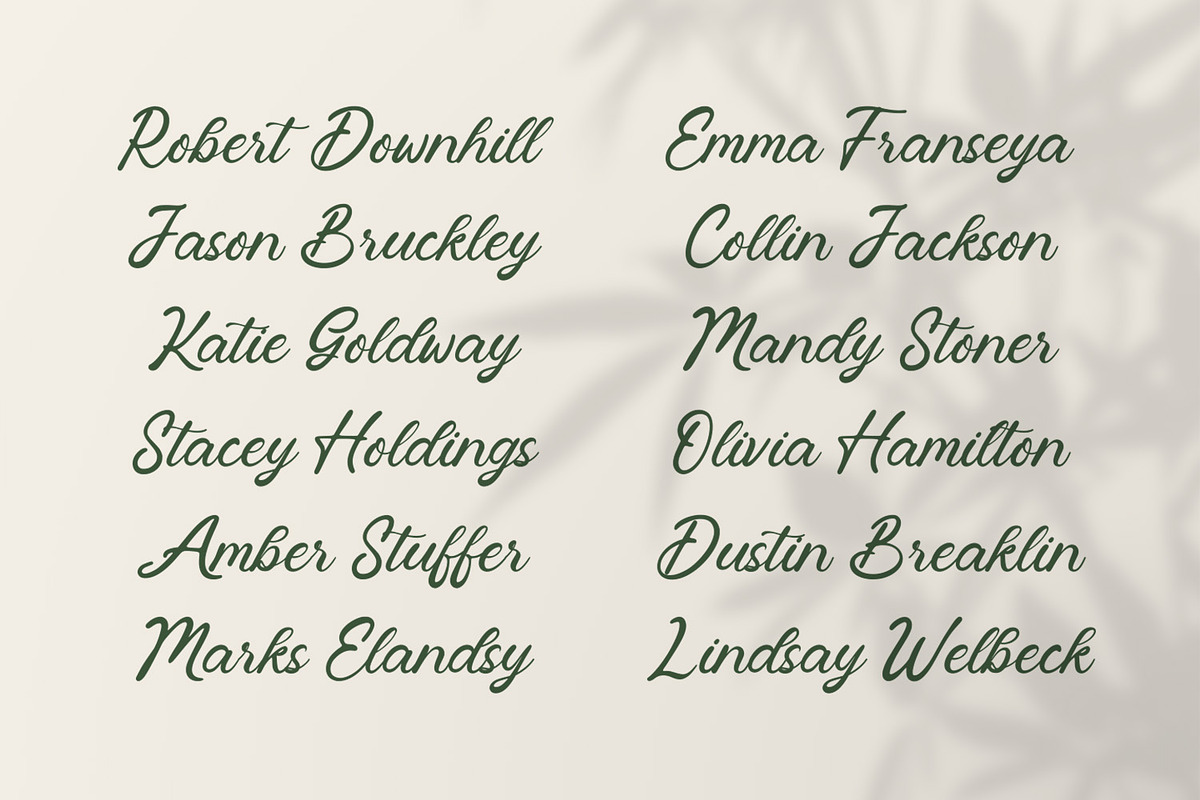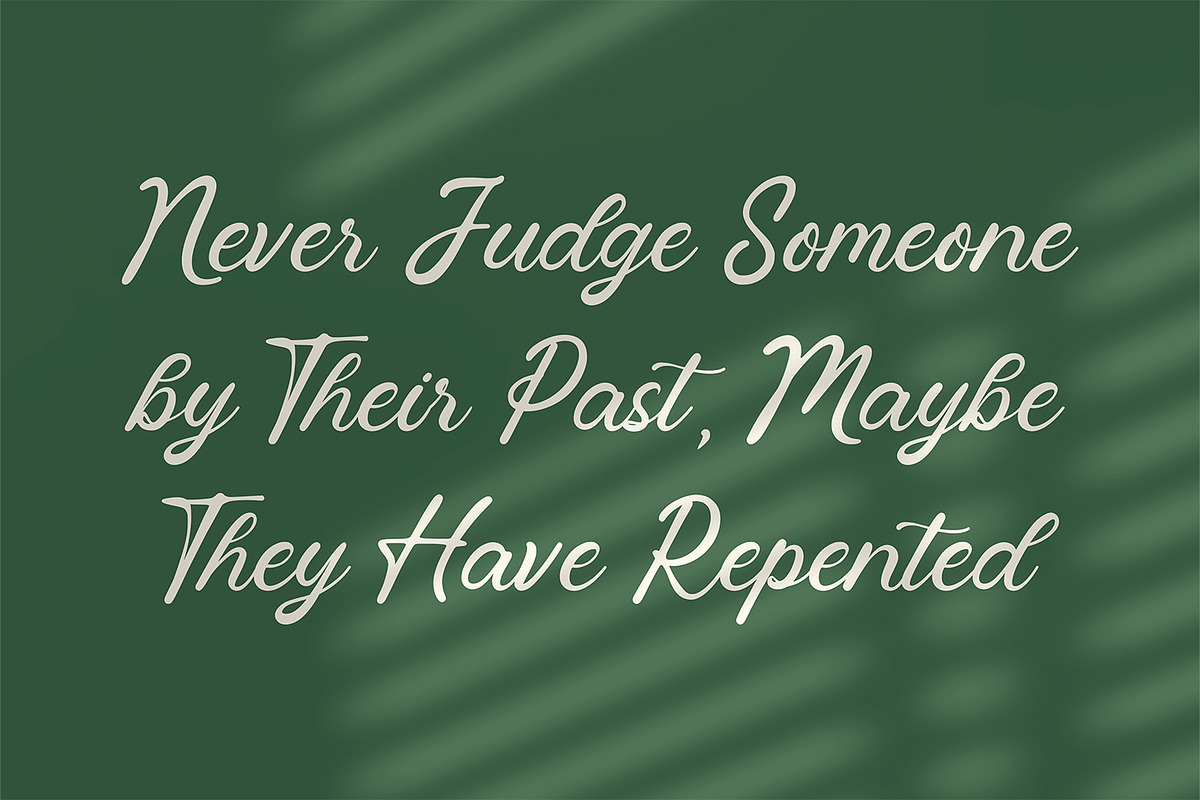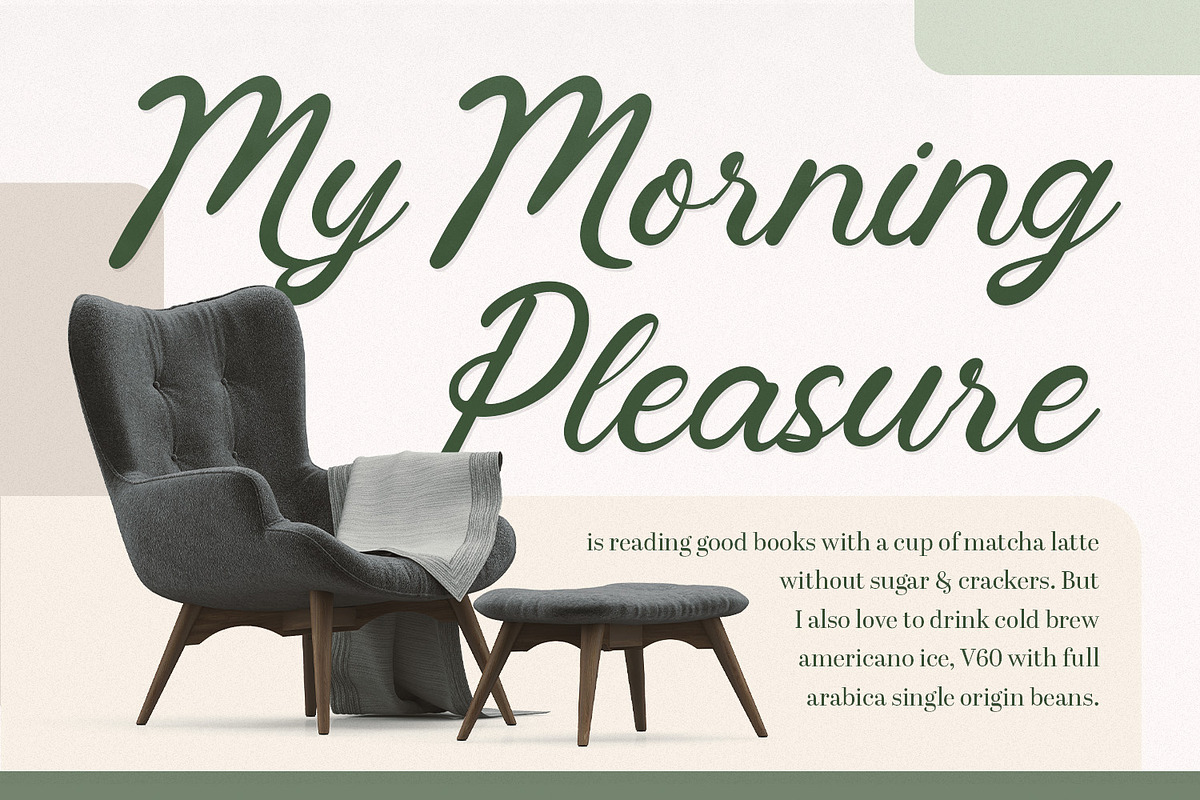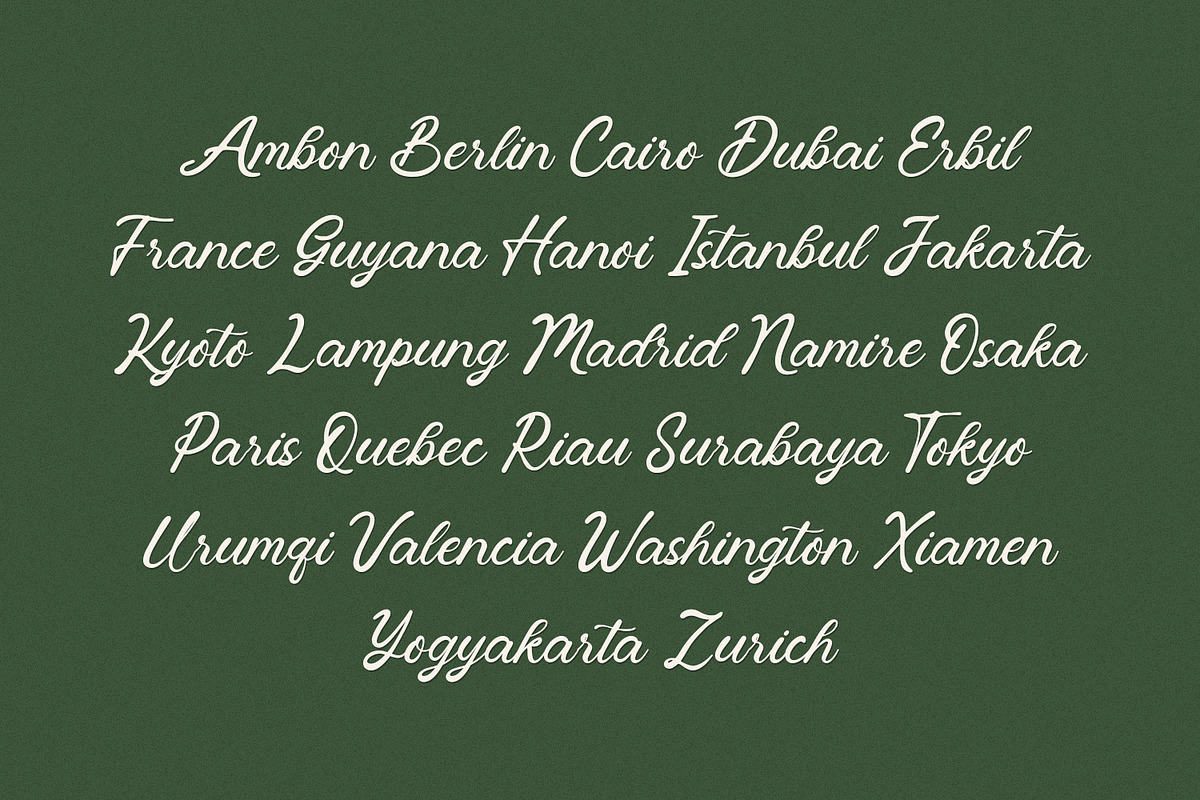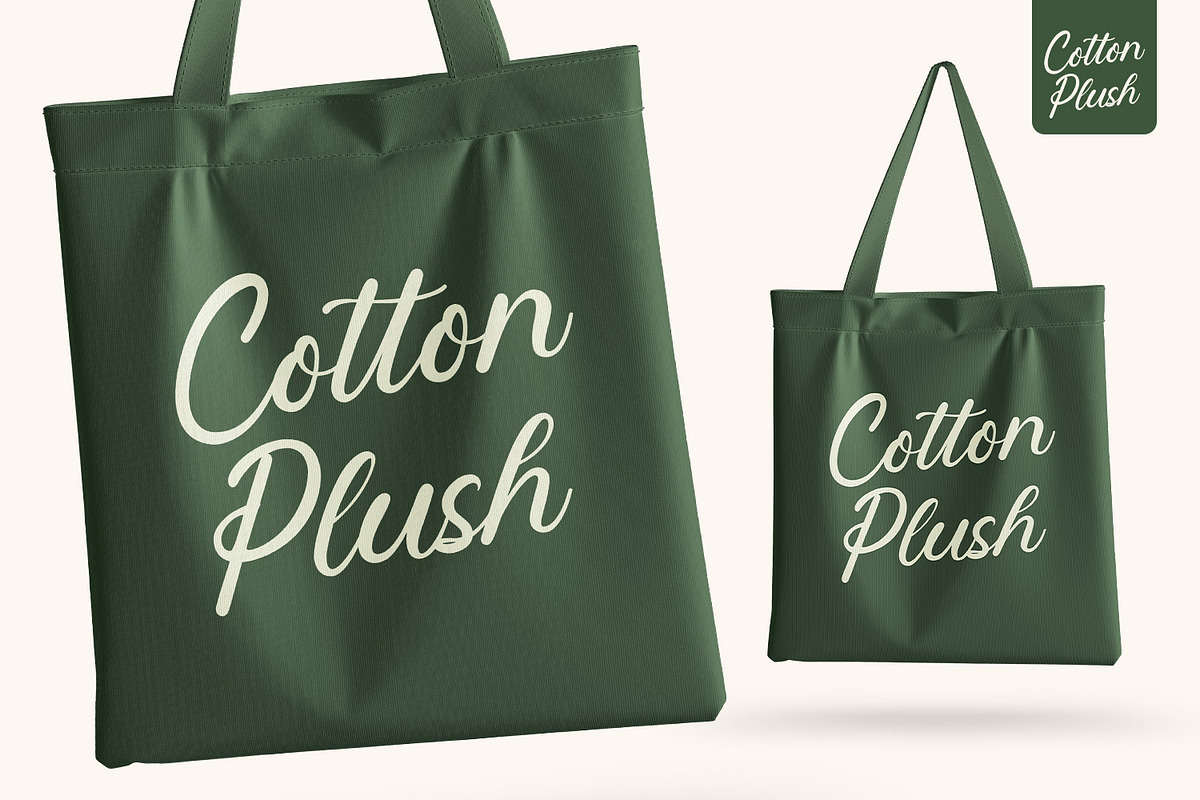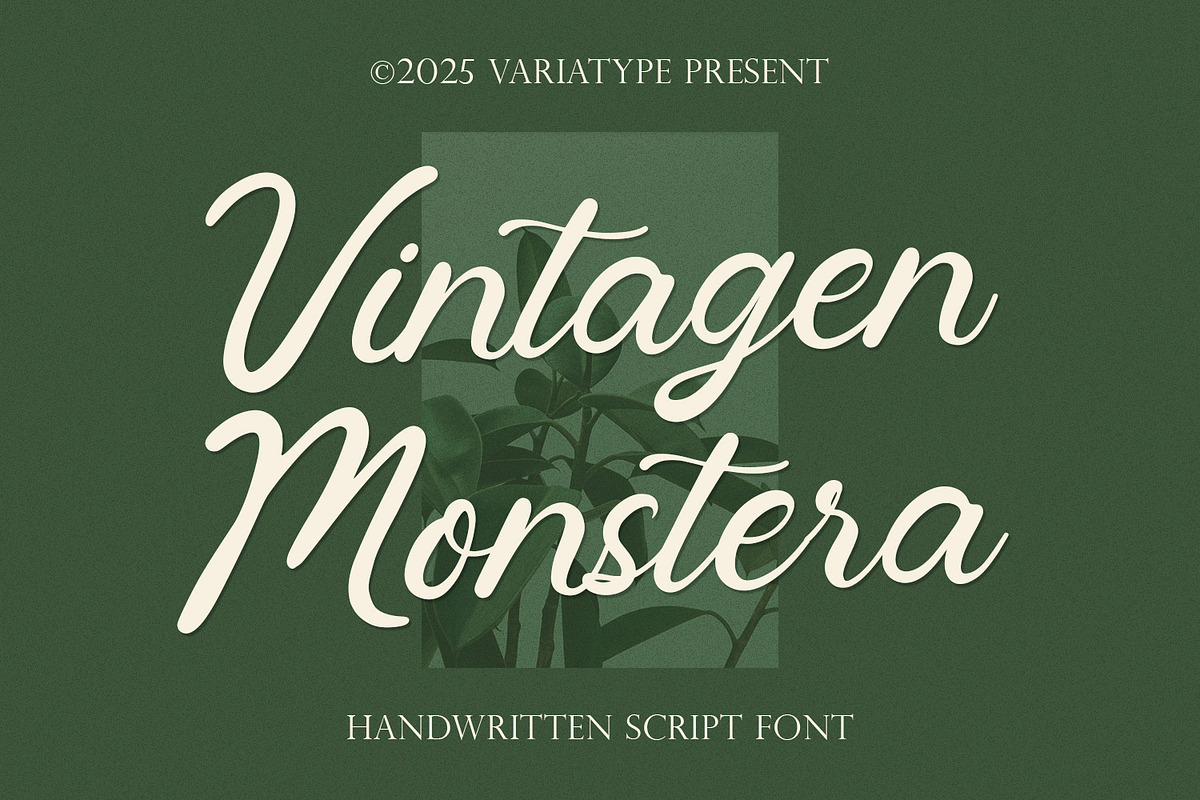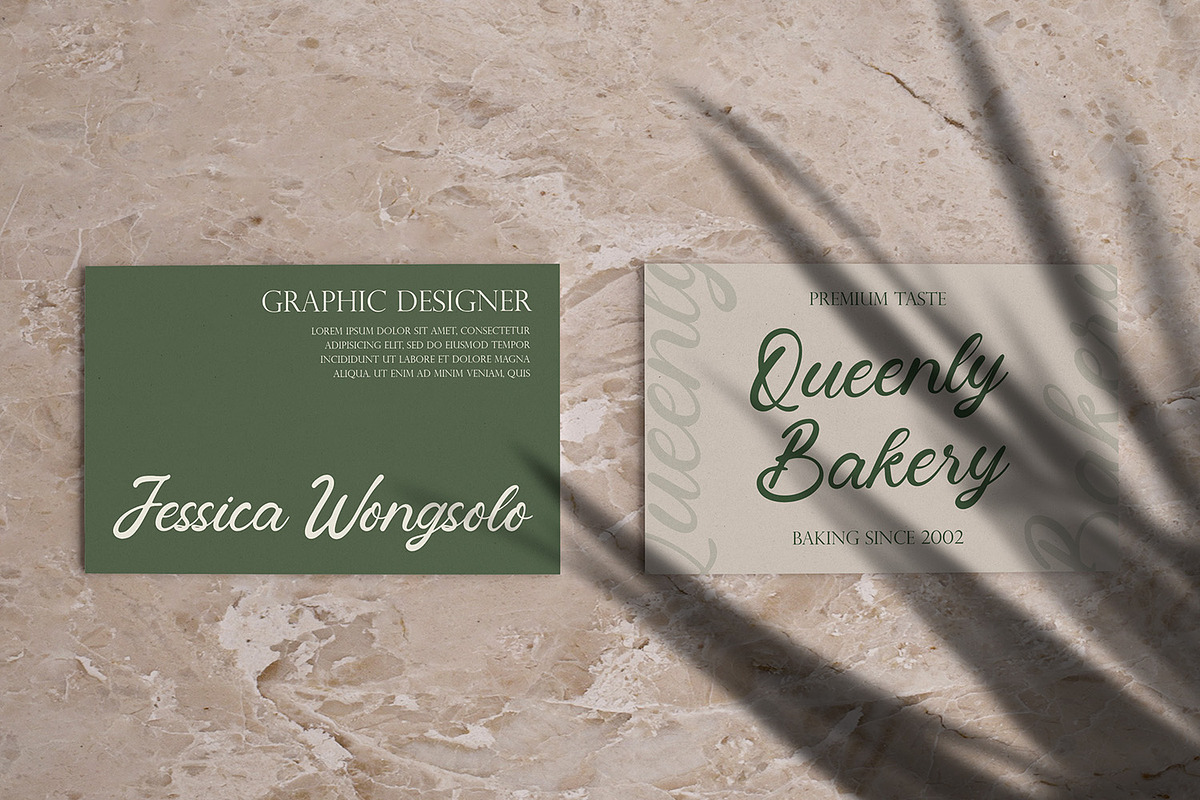
Vintagen Monstera - Handwritten Font
Vintagen Monstera is a refined handwritten script font inspired by natural elegance and long-lasting vintage charm. With its smooth, flowing curves and organic letterforms, this typeface brings a warm, self-touch to logos, branding, packaging, invitations, and social media designs. Perfect for creators who want a stylish yet approachable script, Vintagen Monstera blends botanical softness with classic sophistication, making every project feel effortlessly beautiful.
FONT FEATURES
Additional Accents
66 Languages
Kerning
Ligature